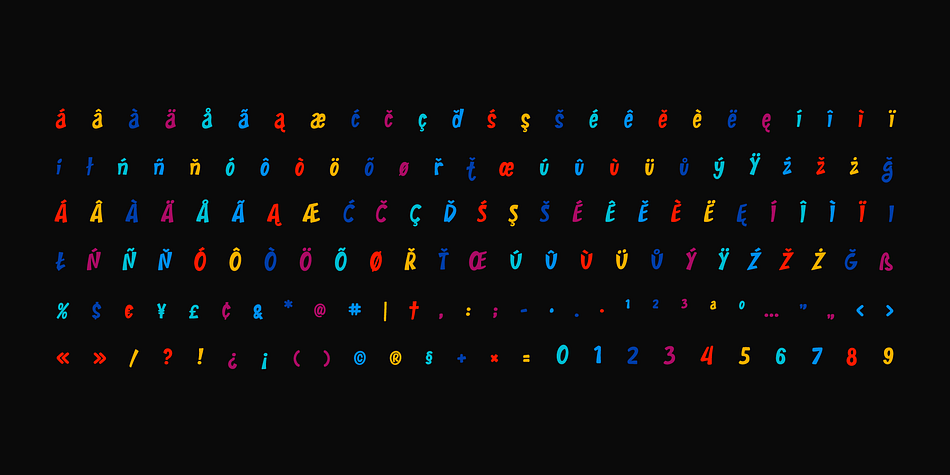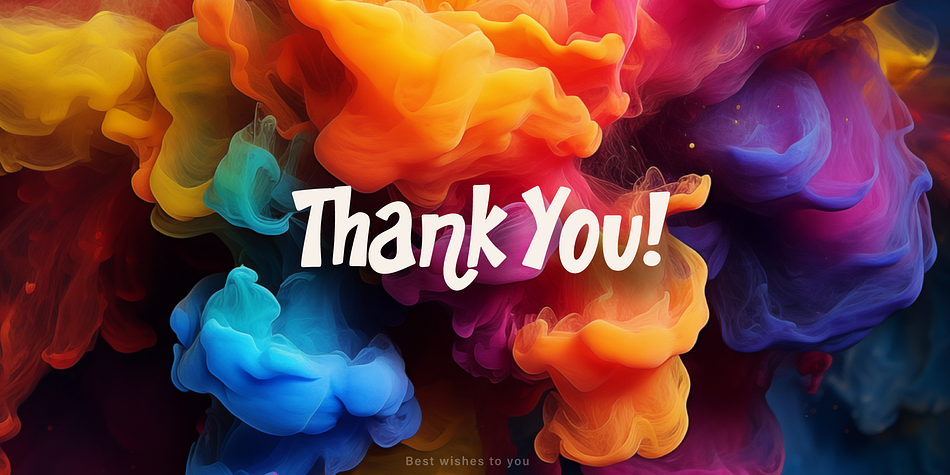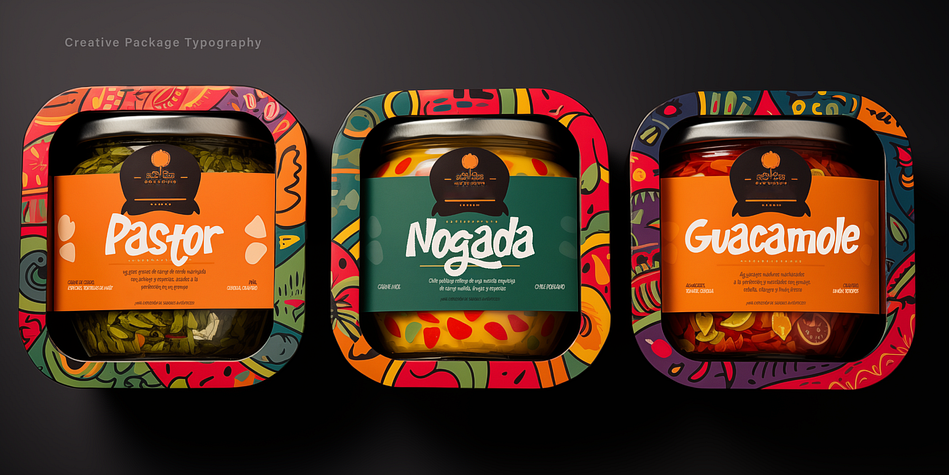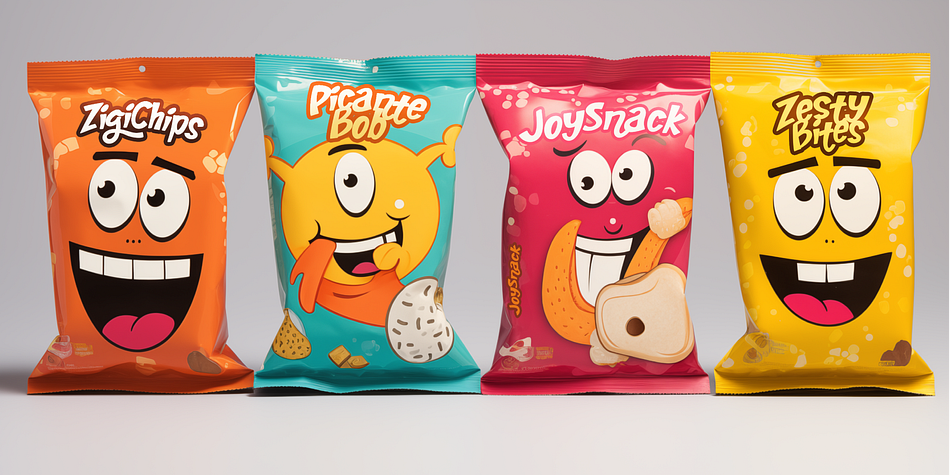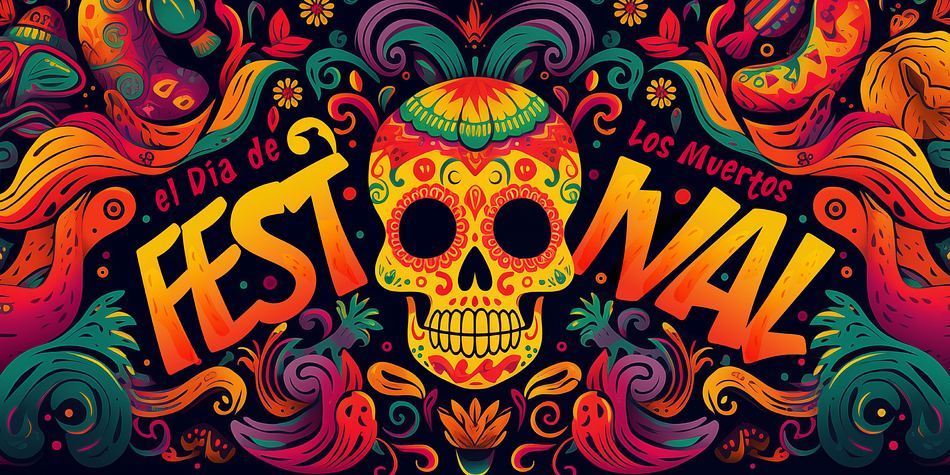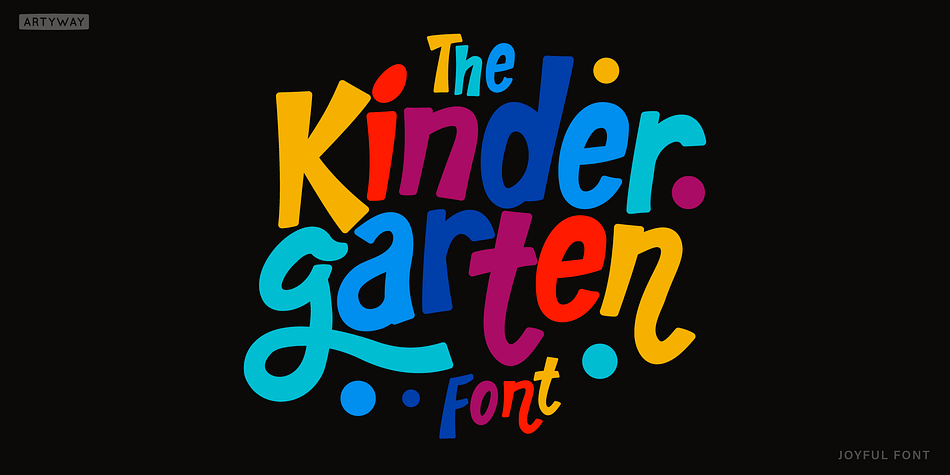
Kindergarten
Designed by Yehor Lisnyi, Kindergarten is a kids font family published by Artyway.
Vibrant, lively color font with a Mexican fiesta flair for joyful, child-centric designs.
Celebrate the joy of childhood with this vibrant and colorful font. Perfect for creating a lively atmosphere in schools, kindergartens, and festive events.
The playful, funny design captures the essence of a child’s world, making it ideal for projects that speak to the hearts of both kids and adults.
From birthday parties to school logos, this font adds a touch of joy to every design.